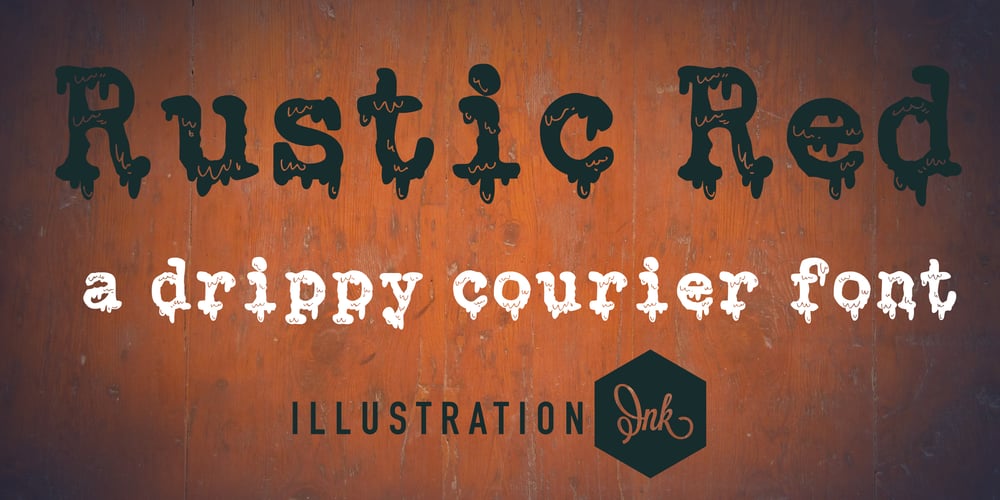
ZP Rustic Red
ZP Rustic Red font
ZP Rustic Red Font Family was designed by Illustration Ink and published by Illustration Ink. ZP Rustic Red contains 1 styles and family package options. This hand-crafted, courier-style font feature ooze and blood throughout.A hand-crafted font is a font that is designed to look like it was written by hand. It is often used for invitations, greeting cards, and other items. Handwritten fonts can be either formal or informal, and they can be used for a variety of purposes.Some of the characteristics of handwritten fonts include: The letters are not perfectly uniform in size or shape. There may be slight variations in the spacing between letters and words. The font may have a “wiggly” or “squiggly” appearance. The font may be difficult to read at small sizes. Handwritten fonts can be a great way to add a casual touch to your designs. They can also be used to create a sense of nostalgia or whimsy. However, it is important to choose a handwritten font that is appropriate for the project you are working on. A formal handwritten font may not be appropriate for a casual invitation, while an informal handwritten font may not be appropriate for a corporate document.